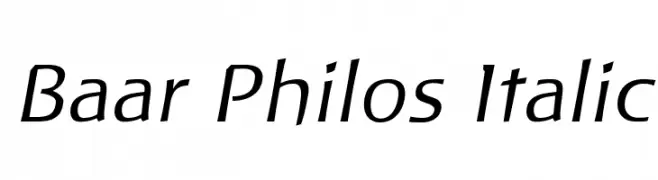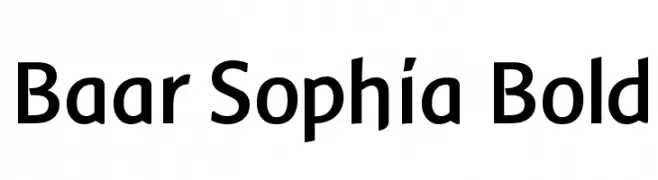
A bold, rounded font with a friendly and modern appearance.
A modern sans-serif font with geometric shapes and uniform strokes.
A bold, modern sans-serif font with clean lines and rounded edges.
A bold, italicized font with a dynamic and assertive style.
A sleek, modern italic font with dynamic curves and clean lines.
A modern sans-serif font with a clean, geometric style.
A bold, modern font with clean lines and a slightly condensed form.
A modern, bold italic font with smooth strokes and medium contrast.
A modern italic font with smooth curves and clean lines, perfect for dynamic and elegant designs.
A bold, modern sans-serif font with clean lines and excellent readability.